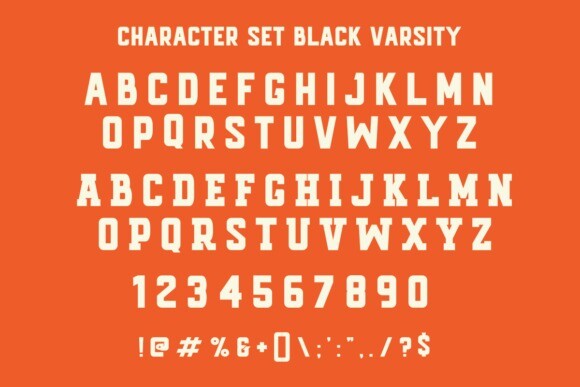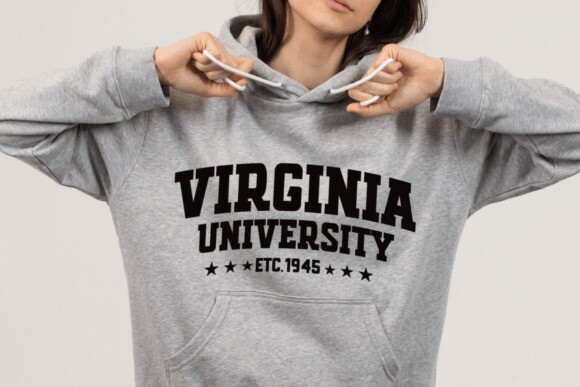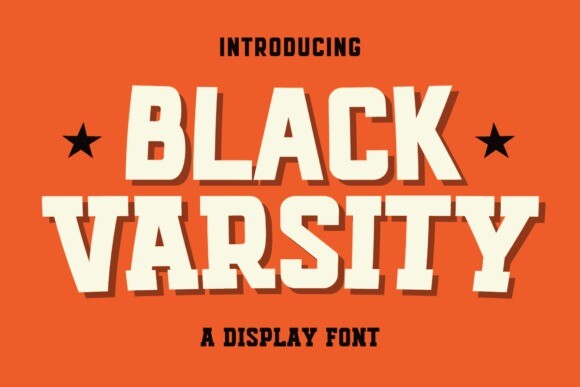
Black Varsity Font
Black Varsity Font is a contemporary display font that exudes unique charisma. The design subtly highlights prominent variations in the style of uppercase and lowercase characters on the glyphs, turning each appearance into a charming visual treat. Black Varsity effortlessly incorporates its modern touch into many designs, making it an instant favorite in the genres of quotes, jackets, sports gear, packaging design, logos, and text effects. Its versatile charm even works well on t-shirts, mugs, and many other mediums, making Black Varsity more than just a font—it’s your partner in creative expression.